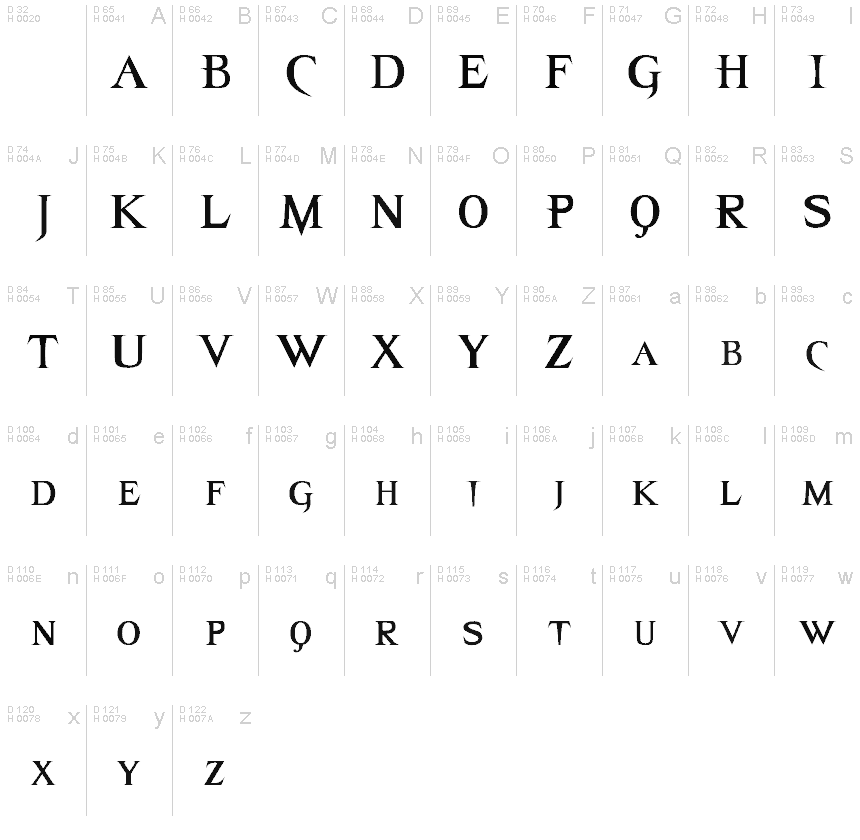
Van Helsing
Van Helsing, designed by the talented Jens R. Ziehn, is a font that weaves together the mystique of gothic tradition with a crisp modern edge. Its sharp serifs and bold strokes convey a sense of strength and sophistication, while the subtle curves maintain an air of elegance. This font's commanding presence is not just visually striking but versatile in its use, making it an ideal choice for projects that require a touch of drama and character.
Whether embossed on book covers, splashed across movie posters or used in branding materials, Van Helsing stands out with its distinctive aesthetic. The balance between gothic heritage and contemporary design ensures that this font doesn't simply communicate; it captivates. For creators seeking to impart their work with an unforgettable visual statement, Van Helsing offers both style and substance in equal measure.
by Jens R. Ziehn